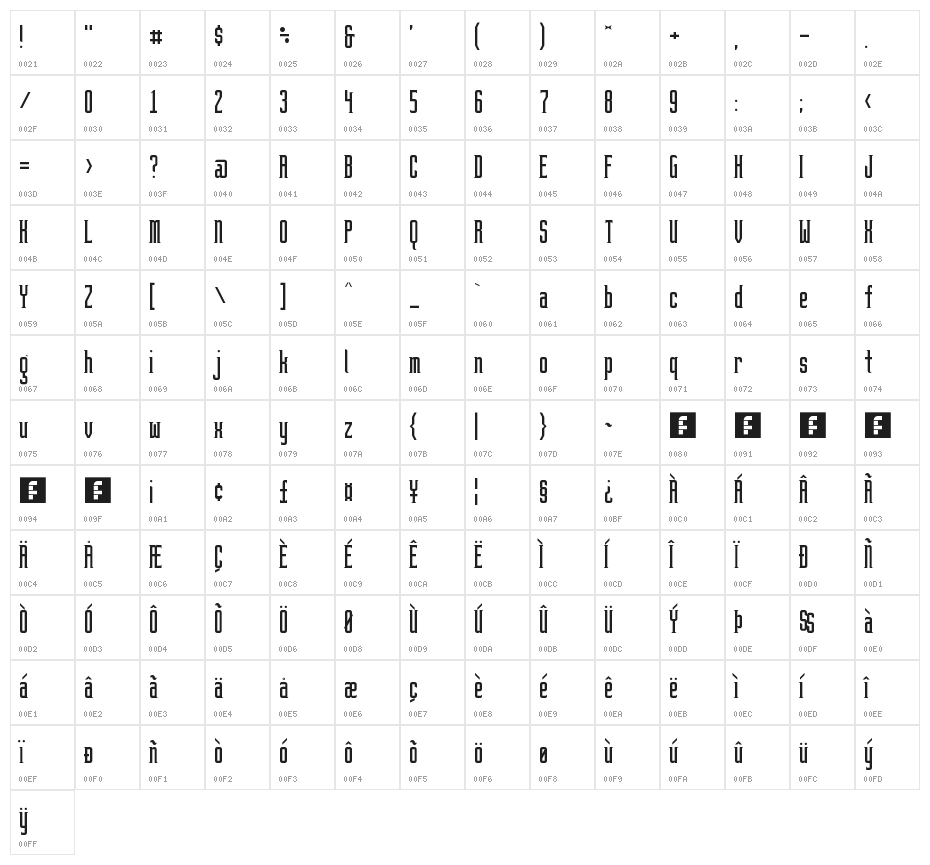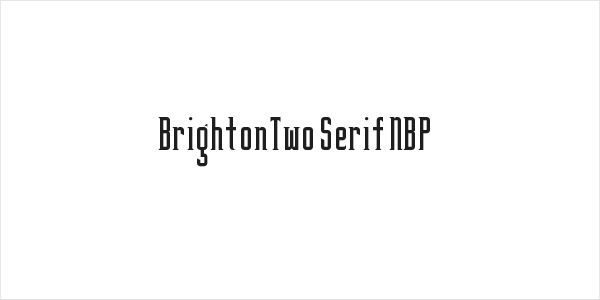
BrightonTwo Serif NBP Font
BrightonTwo Serif NBP Description
This font features a bold and striking serif design, characterized by its tall and narrow letterforms. The uppercase letters exhibit a strong vertical emphasis with sharp, angular serifs that give a sense of authority and elegance. The lowercase letters maintain a consistent style, with a slightly more condensed appearance, enhancing readability while preserving the font's distinctive character. The numerals are clear and legible, matching the overall aesthetic with their uniform stroke weight. Special characters are thoughtfully designed, integrating seamlessly with the rest of the typeface. This font's unique style makes it ideal for projects that require a touch of sophistication and boldness.
Proposed ProjectsIdeal for branding, headlines, posters, and editorial design where a bold statement is needed.